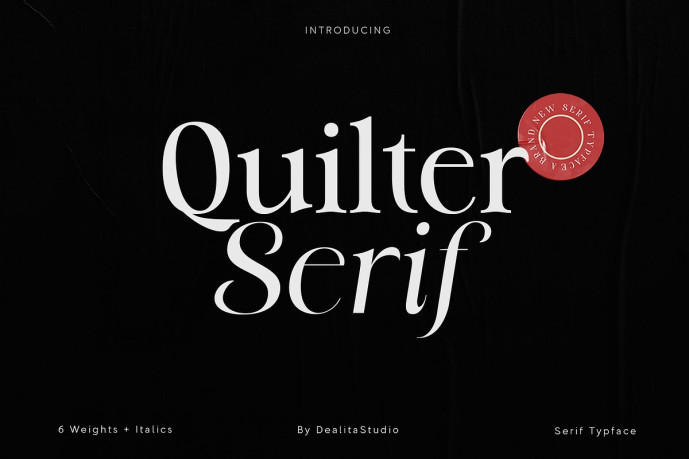
DS Quilter Font Family
Designer: dealitastudio
DS Quilter Font Family is a sophisticated variable serif font that blends minimalist elegance with classic structure and modern versatility. From Light to ExtraBold, its seamless weight range empowers designers with unmatched flexibility — perfect for luxury brands that demand both refinement and responsive design.